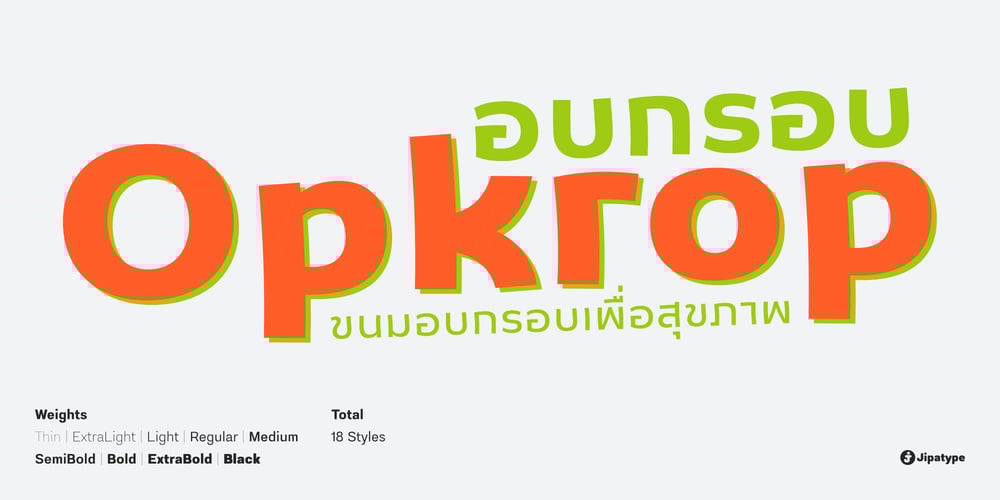
Opkrop Font Family was designed by Anupap Jaichumnan and published by Jipatype. Opkrop contains 18 styles and family package options. Opkrom is Thai language mean Crispy or Crunchy. With informal sans serif style look like semi handwriting give feel friendly and warm . It support major Latin scripts and Thai scripts. It have stylistic set for Thai script. Opkrop is suited for headline on packaging, print ad and various graphic work.